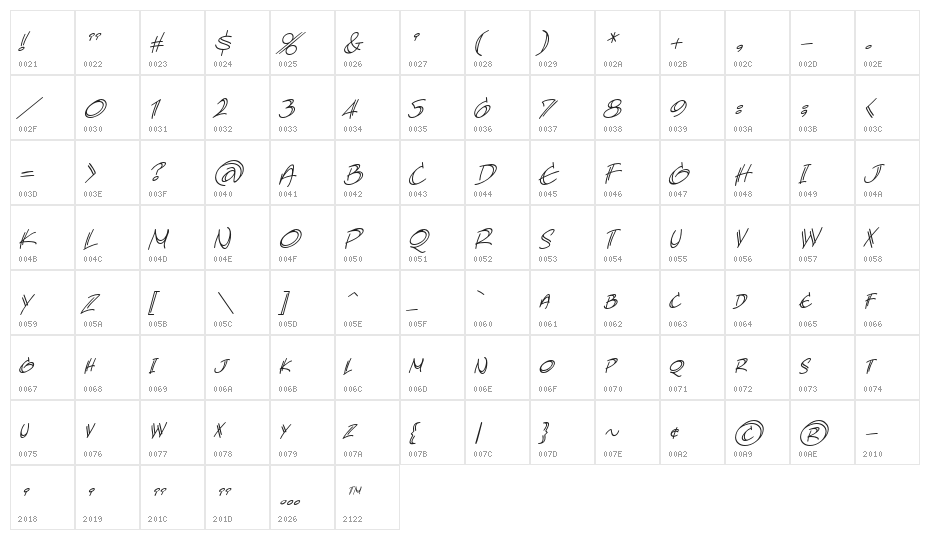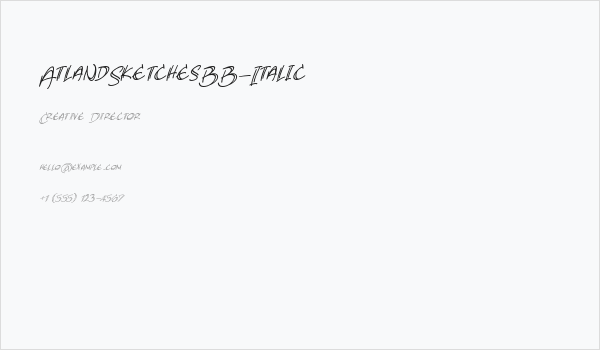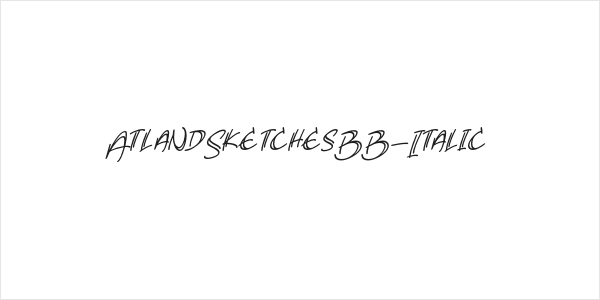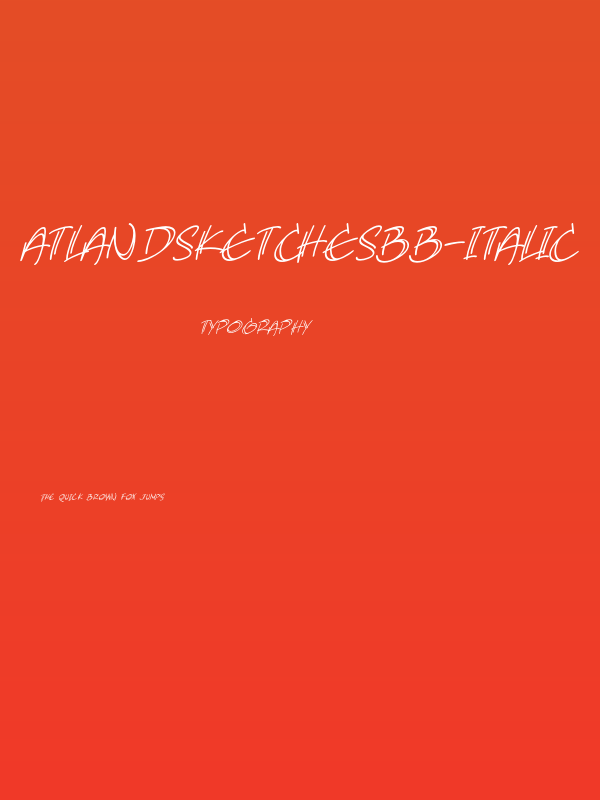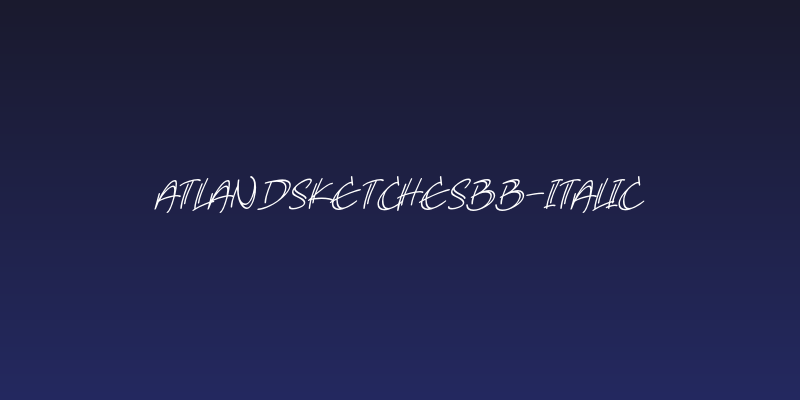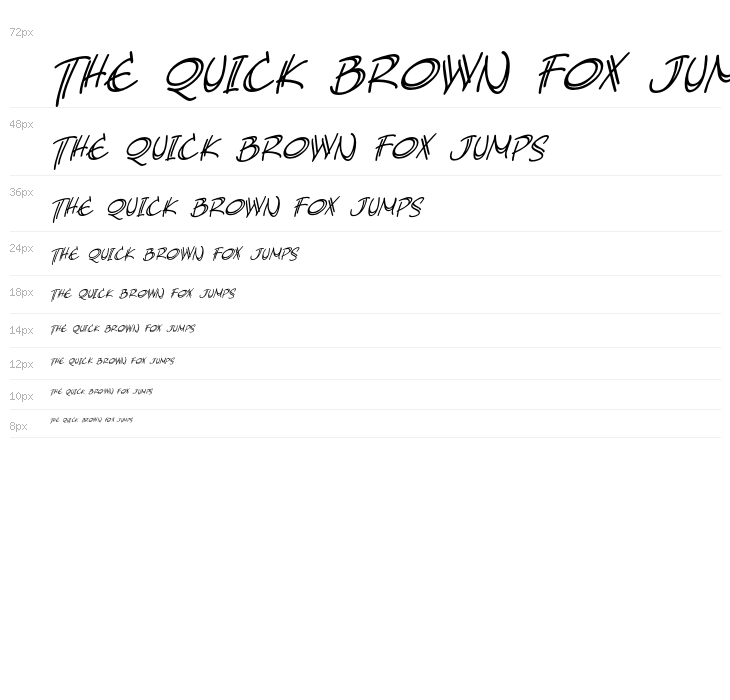
AtlandSketchesBB-Italic Font
AtlandSketchesBB-Italic Description
This font exhibits a dynamic and energetic style, characterized by its italicized, handwritten appearance. The strokes are fluid and slightly irregular, giving it a sketch-like quality that adds a personal touch. The uppercase and lowercase letters maintain a consistent flow, with a slight slant that enhances the sense of movement. The numerals and special characters follow the same stylistic approach, ensuring uniformity across all elements. This font's unique design makes it stand out, offering a creative and informal vibe suitable for various artistic applications.
| Use Case | Headlines, Artistic projects, Informal branding |
| Proposed Projects | Ideal for creative projects such as greeting cards, invitations, posters, and artistic branding. |